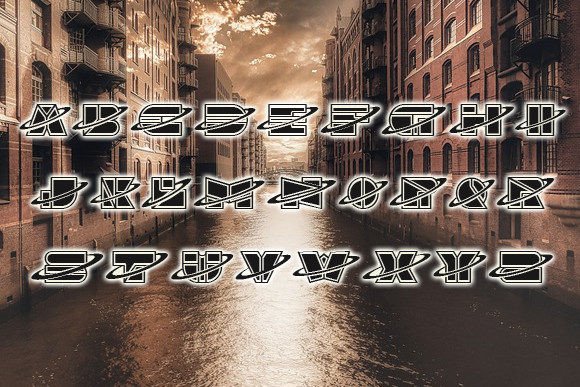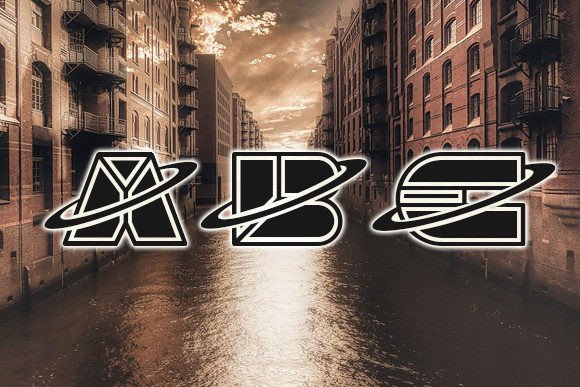
Introduction to Channel Font
Channel is an elegant and striking decorative typeface that will look stunning on any of your designs.
Use this font on posters, flyers, and much more .
Key Features of Channel Font
Why Choose Channel Font?
Channel Font offers exceptional quality and versatility, making it a valuable addition to your design toolkit. Whether you’re creating for personal projects or commercial use, Channel Font delivers professional results.